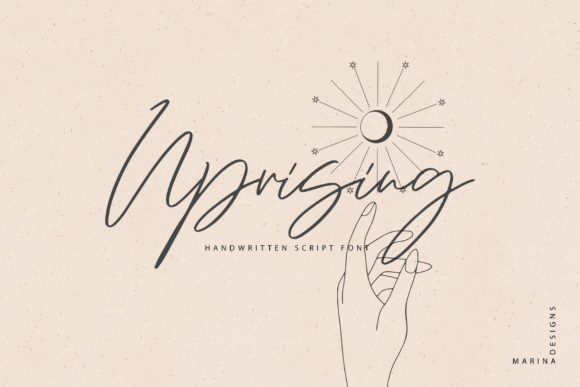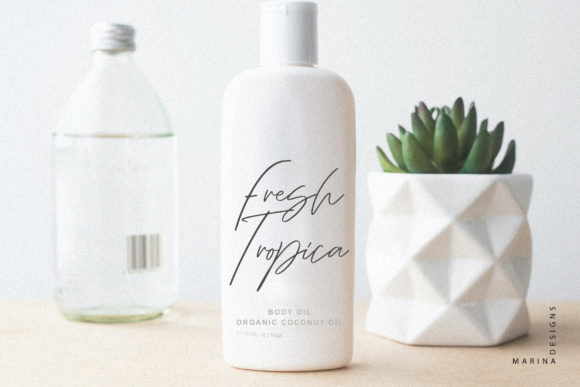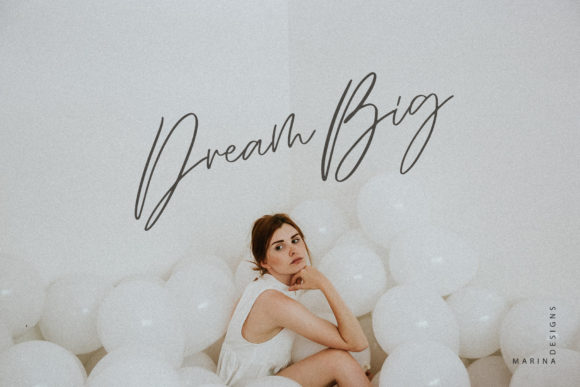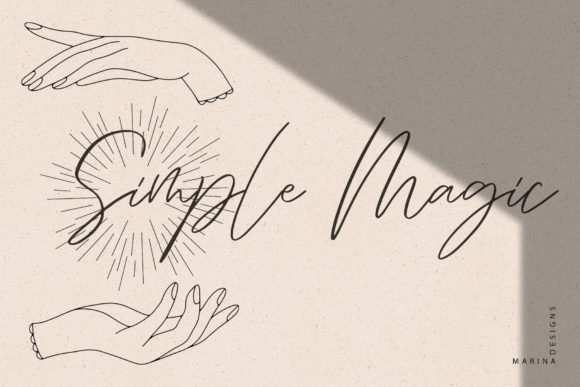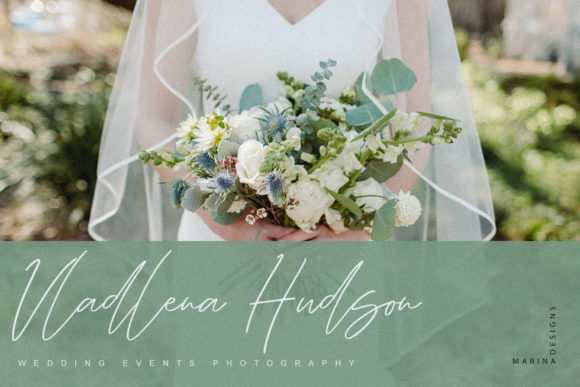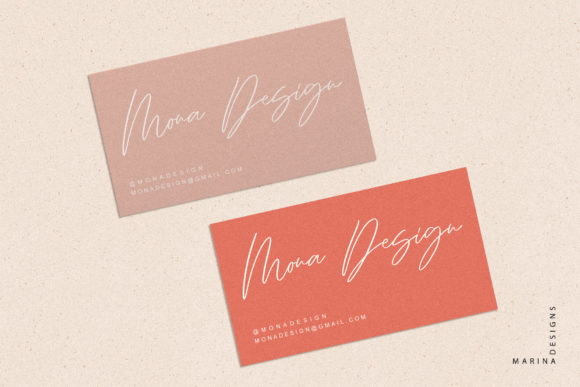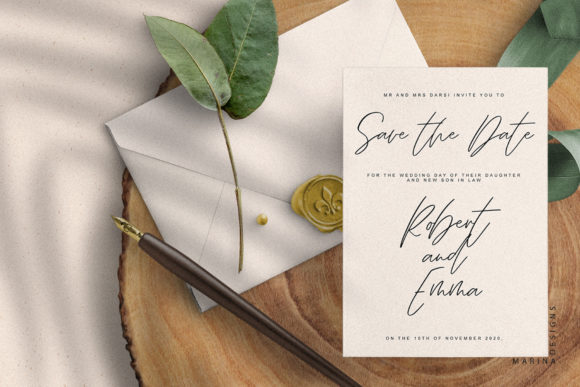
Uprising Font
About Uprising Font
Uprising is a thin, sweet and delicate handwritten font. Dainty and joyful, this font will be ideal for writing wedding invitations, cards or any other design that may need a romantic, personalized touch!